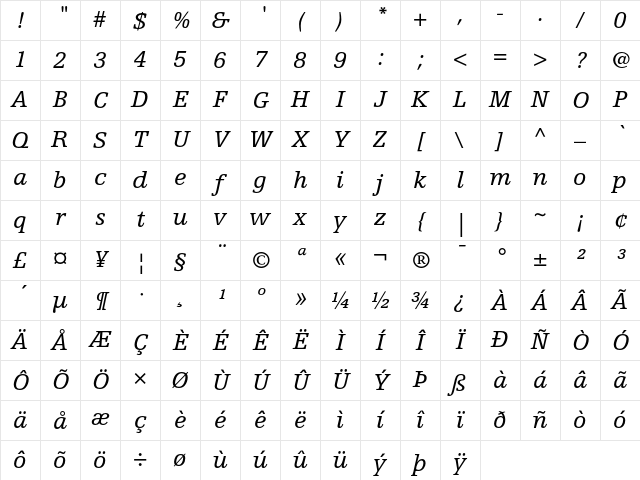
Egyptienne F is a composed and adaptable typeface that performs quietly and consistently across a wide range of design contexts. The slanted form adds forward momentum and visual energy.
Pro Tip: Use Egyptienne F for emphasis, pull quotes, and subheadings where its slanted energy can add rhythm to the layout.